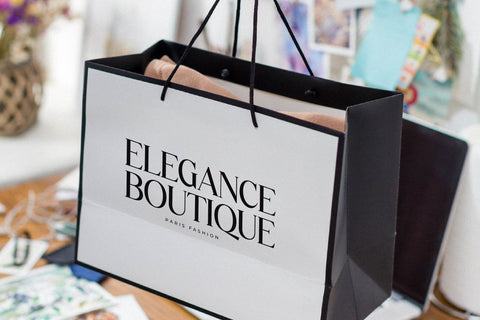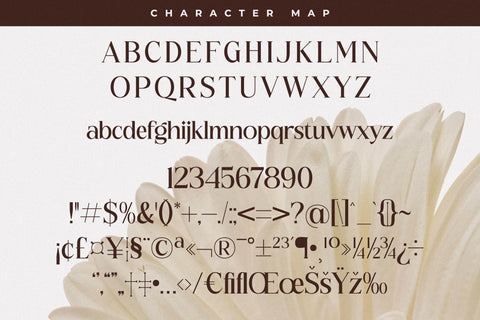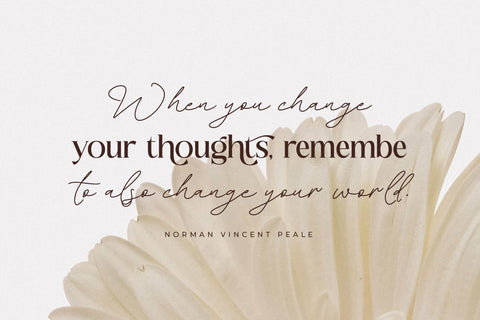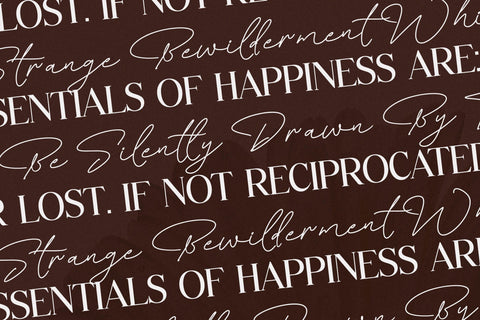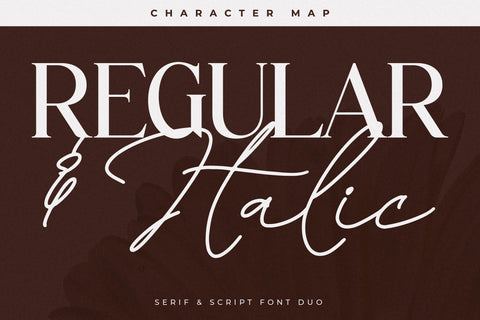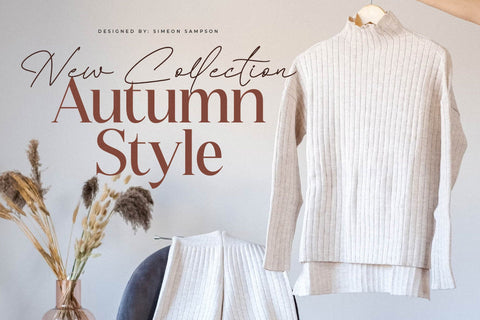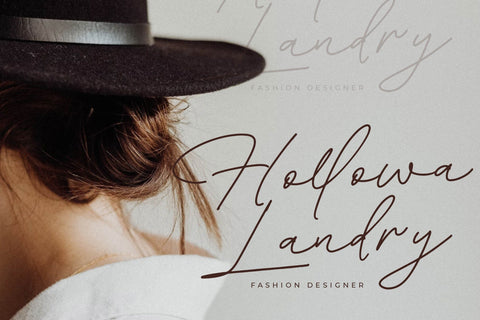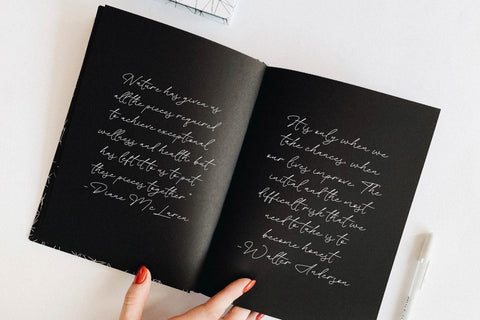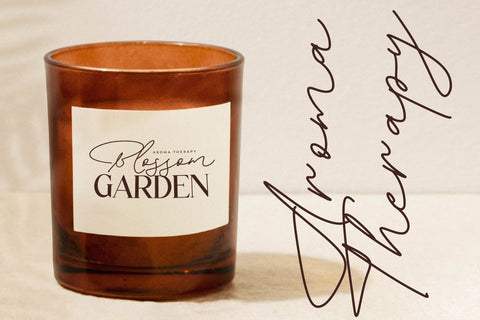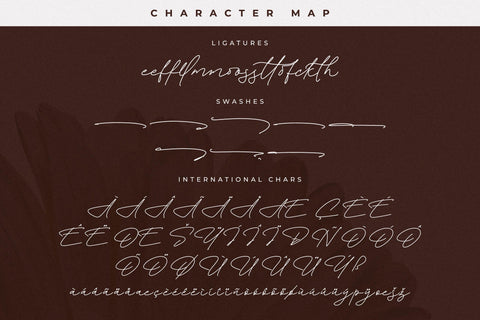
Floral Paradise Font Duo
Proudly present Floral Paradise Font Duo , created by Storytype,
A serif and script typeface that has own unique style & modern look.